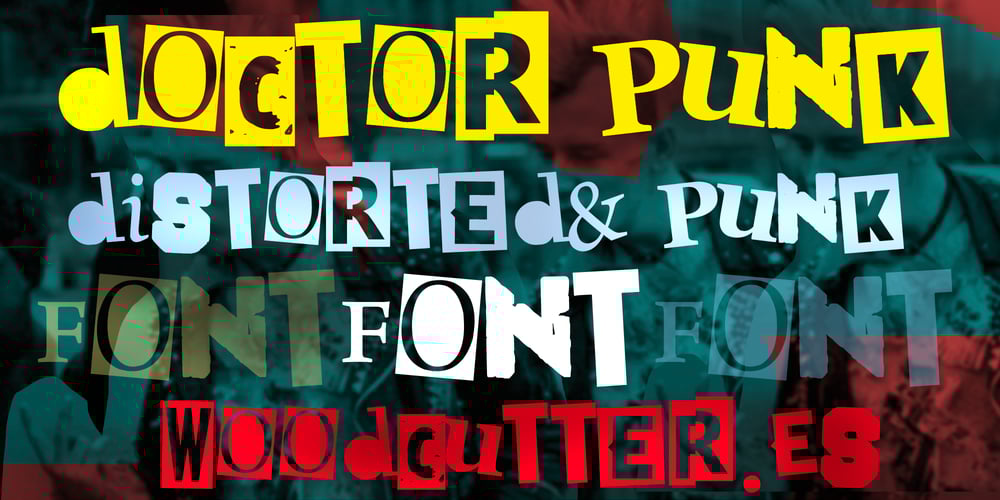
Doctor punk
Doctor punk font
Doctor punk Font Family was designed by Jordi Manero and published by Woodcutter. Doctor punk contains 1 styles and family package options. “Doctor Punk” is a font exuding the rebellious spirit of classic punk from the 70s and 80s. With disconnected and distorted letters, it captures the raw energy and DIY aesthetic of the punk movement. Each character rebels against conformity, embracing chaos and individuality. This font injects a dose of anarchy into your designs, perfect for capturing the essence of punk rock posters, album covers, or zines. Embrace the unconventional and let “Doctor Punk” add a gritty and rebellious edge to your projects, reflecting the attitude of a bygone era that continues to inspire creativity and defiance.